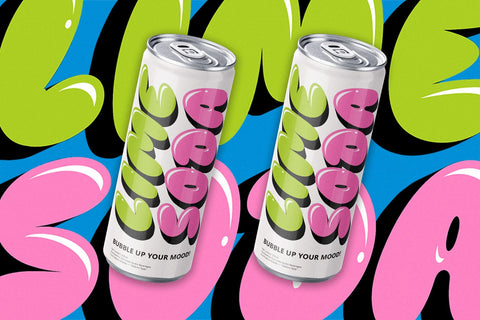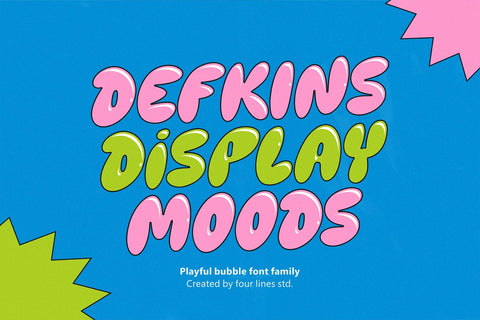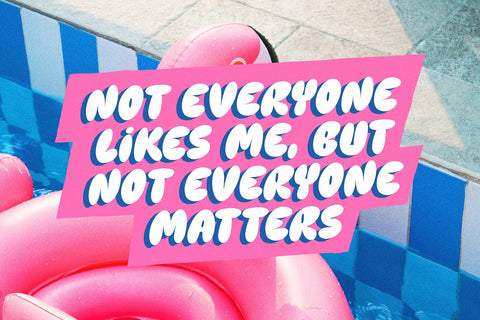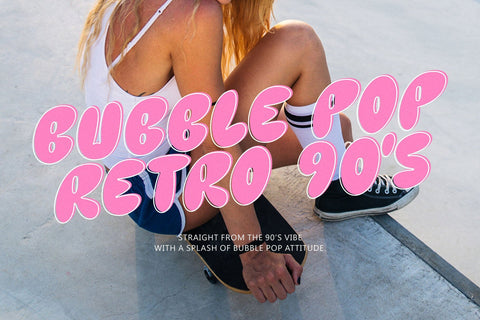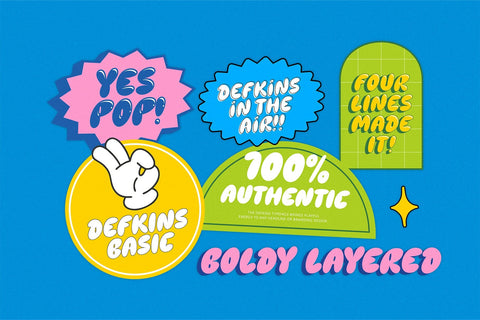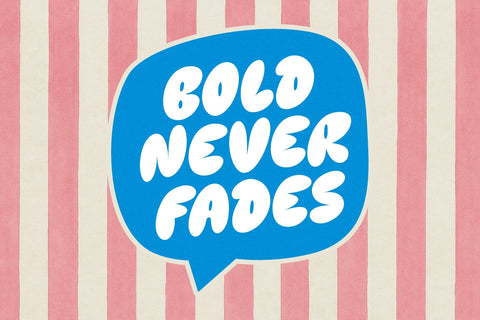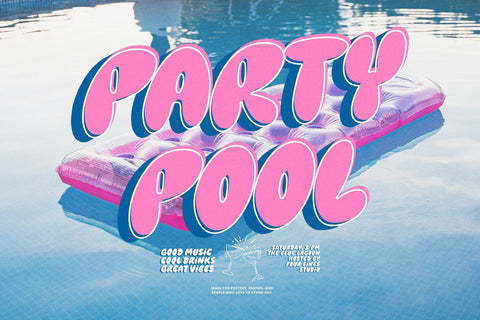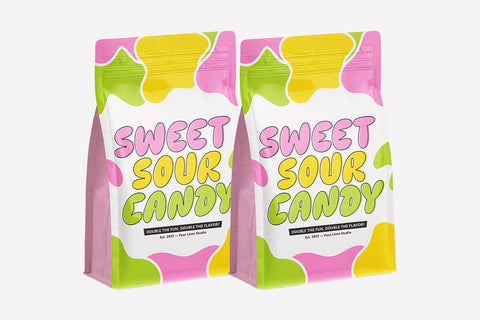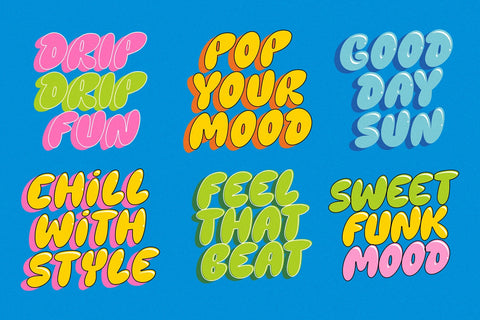
Defkins — The Bubble Pop Display Typeface
Defkins is a playful bubble display font inspired by 90’s pop aesthetics — bold, bouncy, and full of character.
With its soft curves and vibrant personality, Defkins brings joy and confidence to any design — from packaging and posters to branding, apparel, and social media graphics.
This family includes 4 styles:
Defkins Regular, Defkins Pop, Defkins Air, and Defkins Boldy.